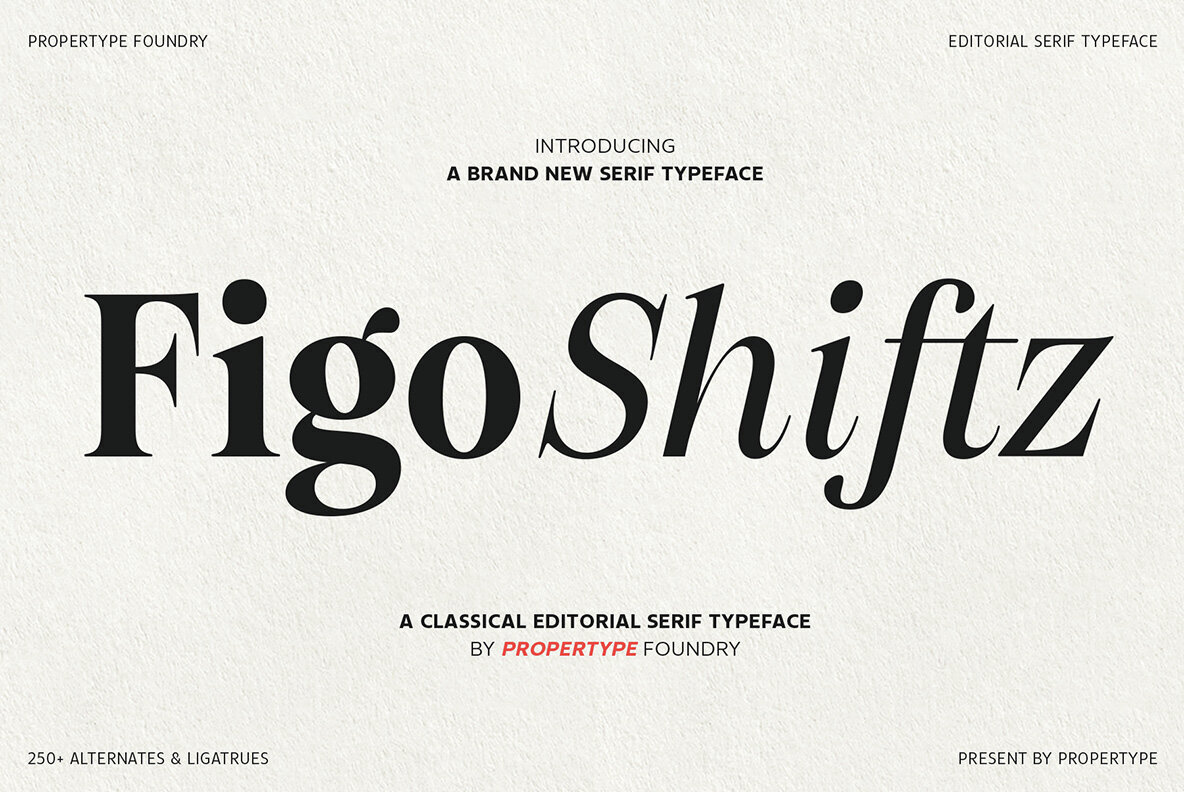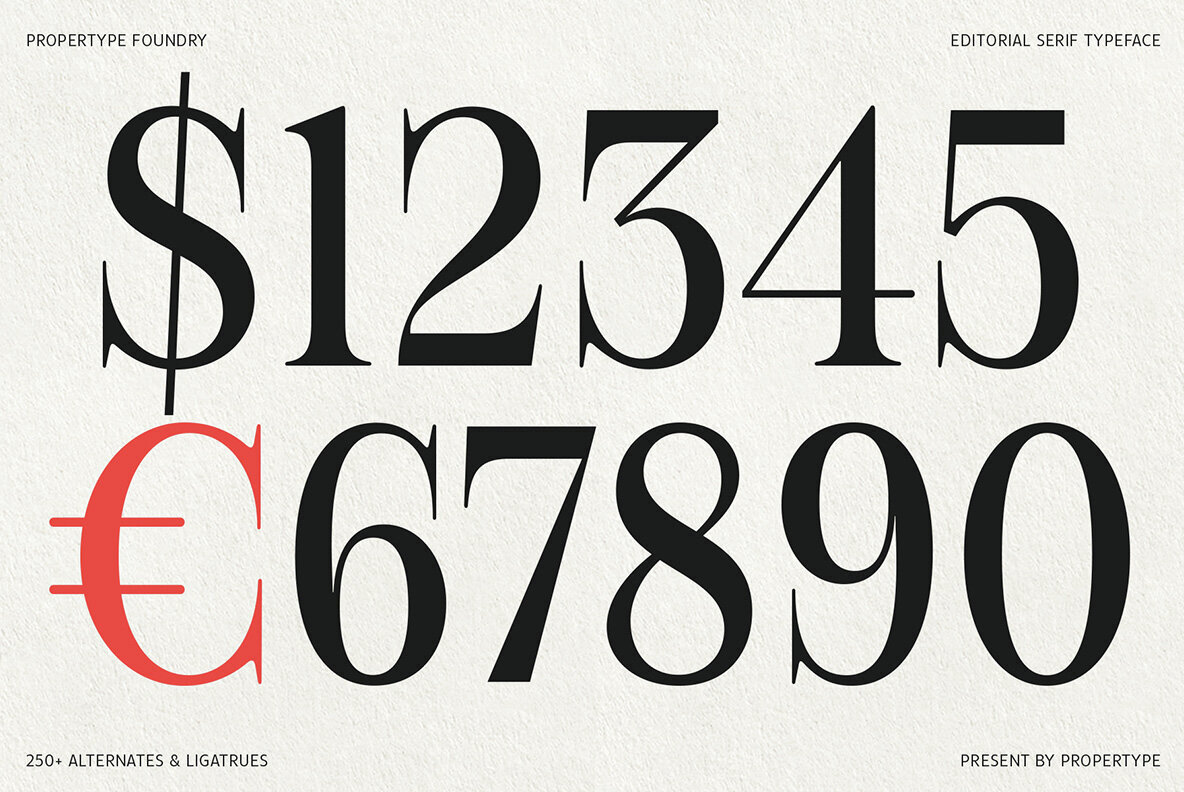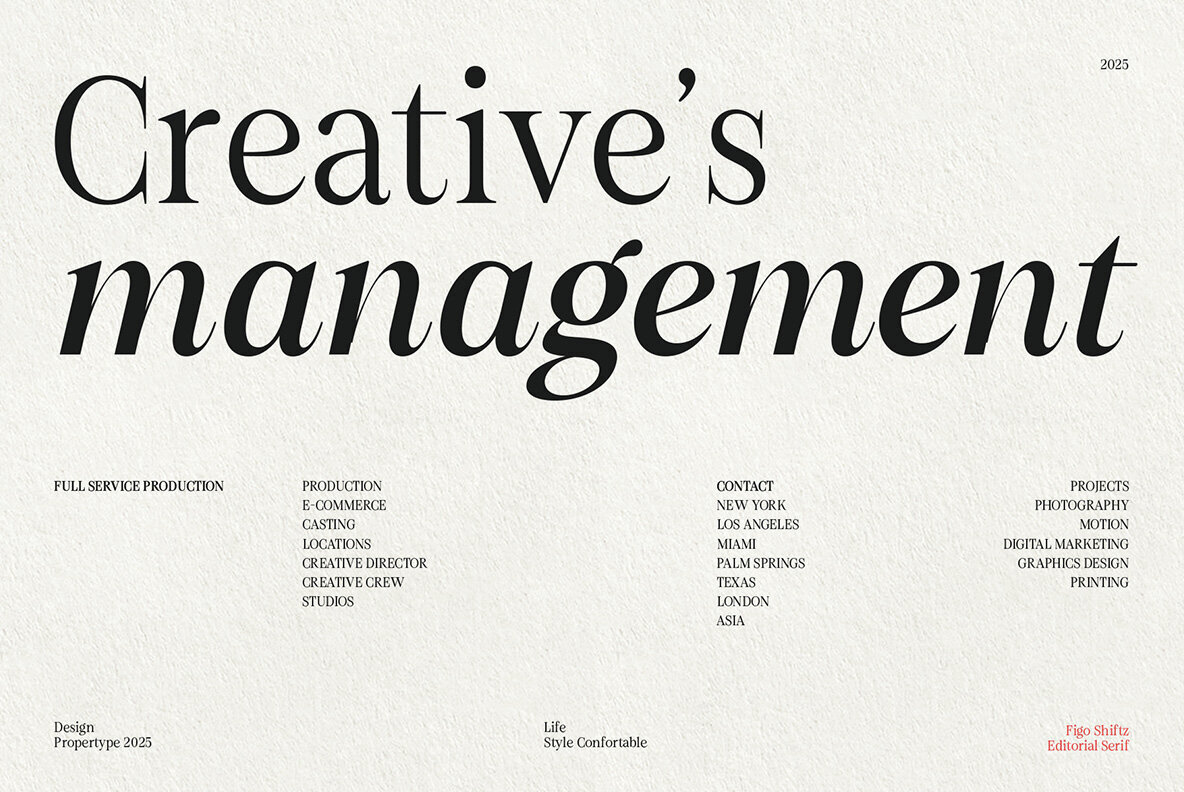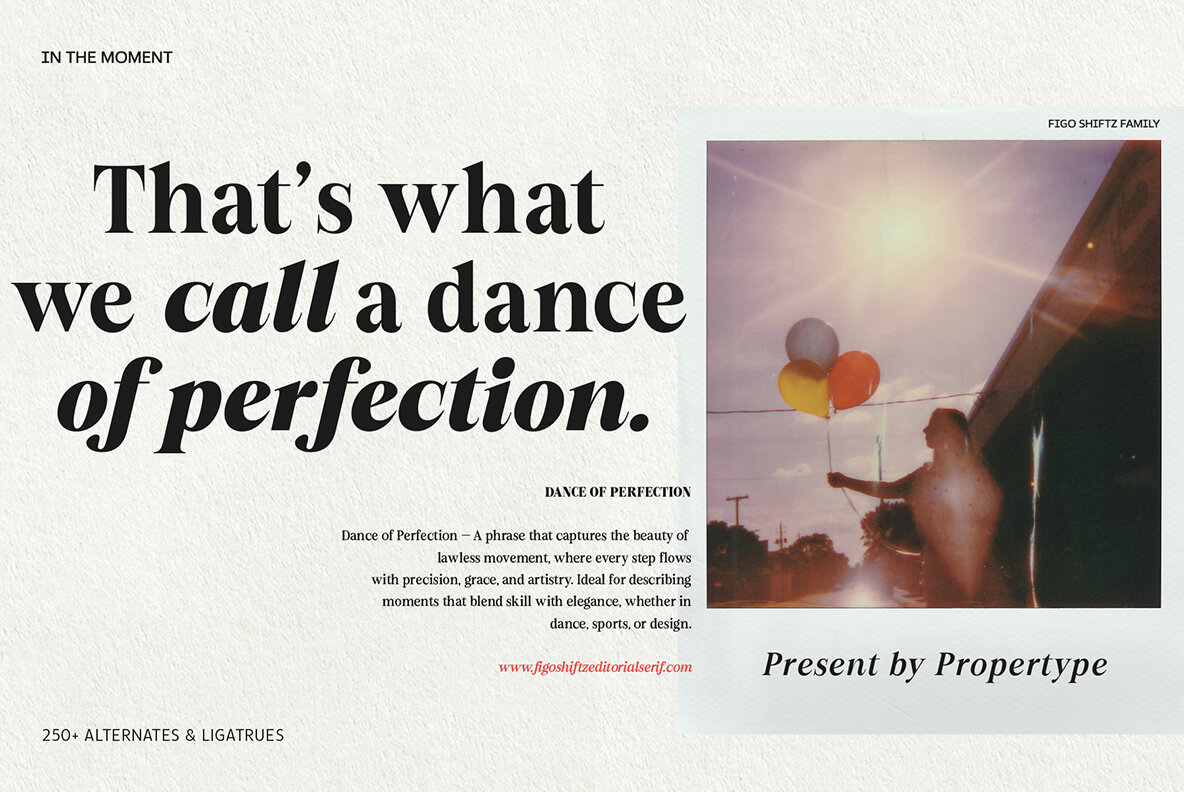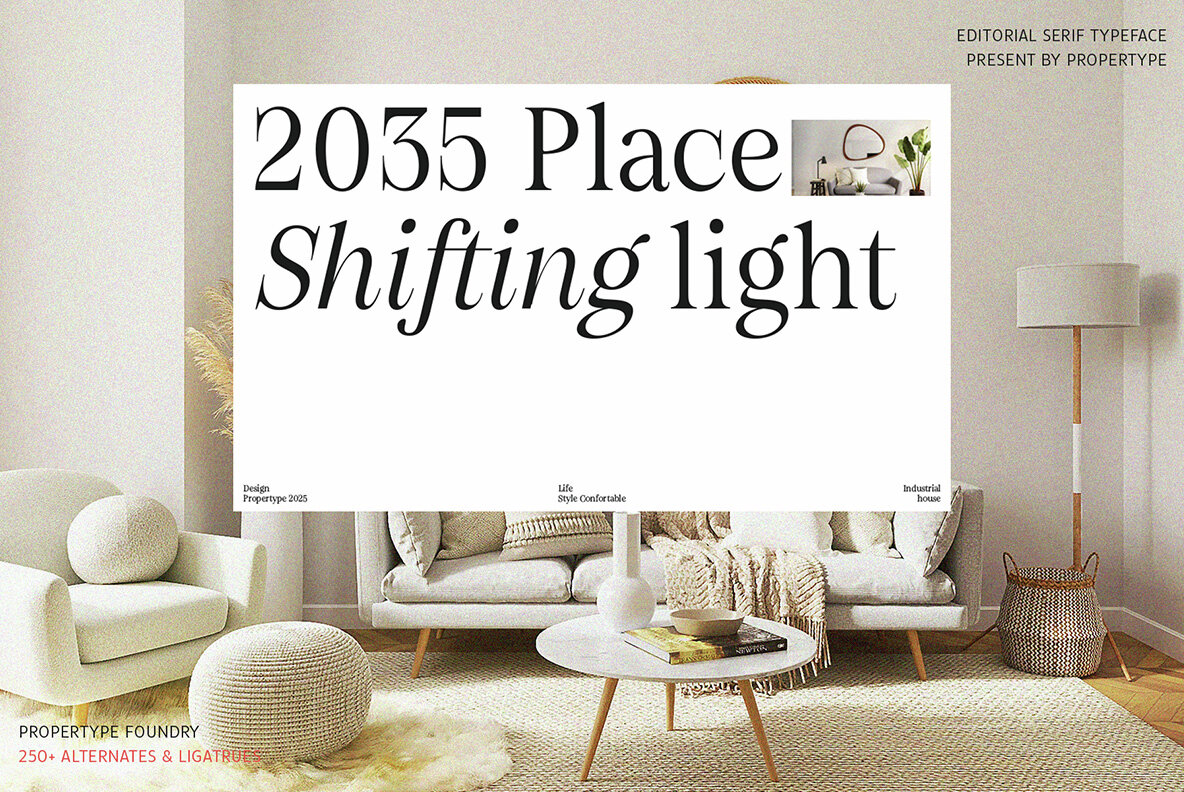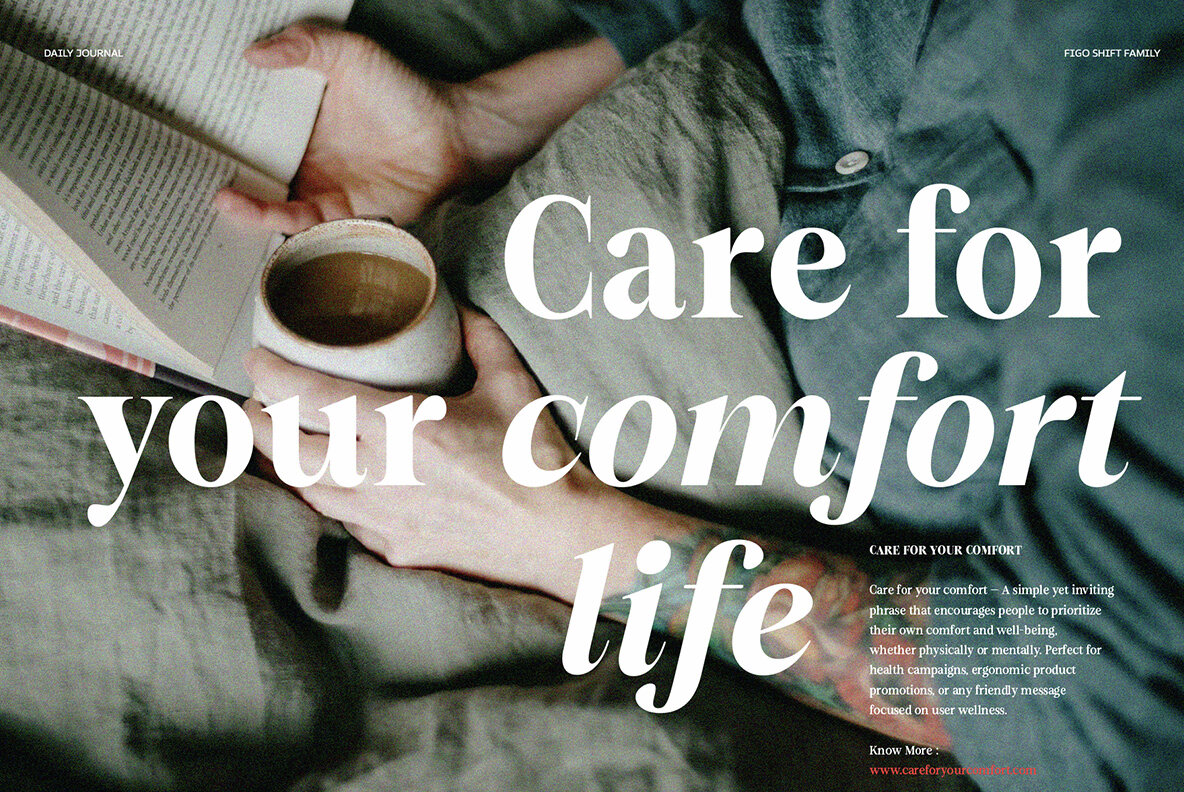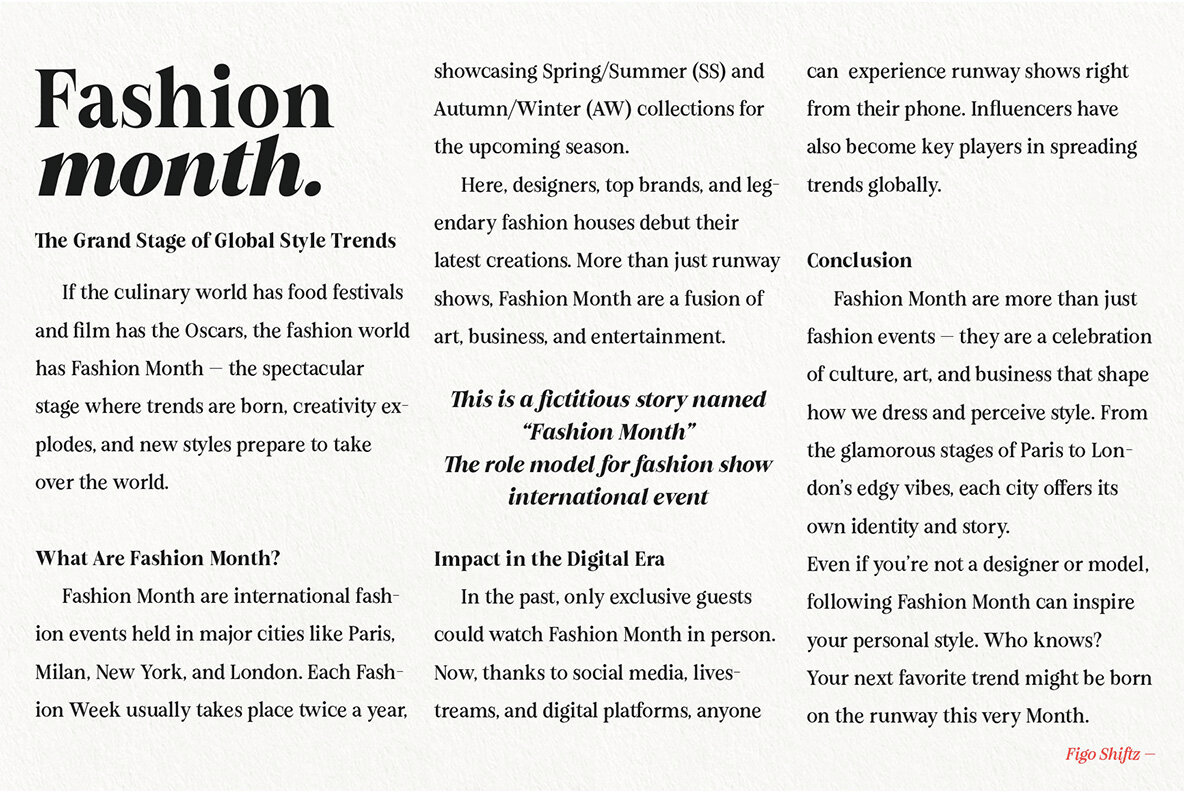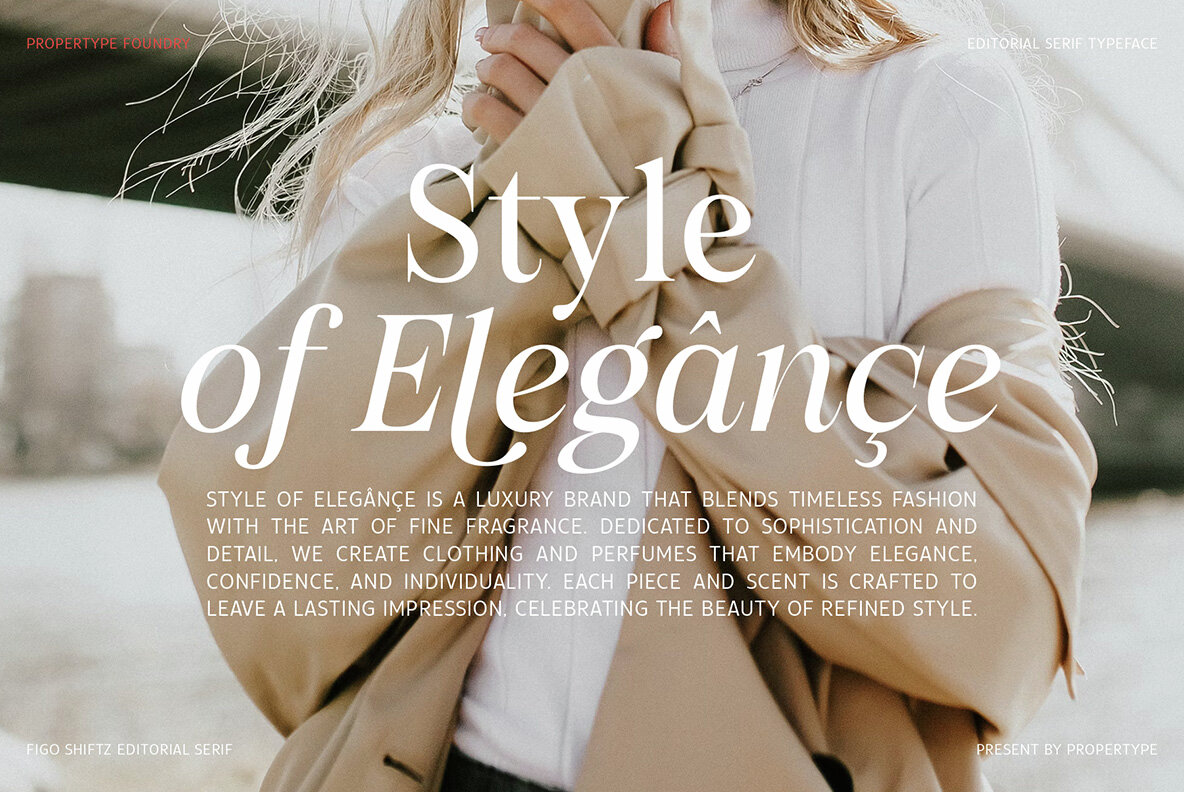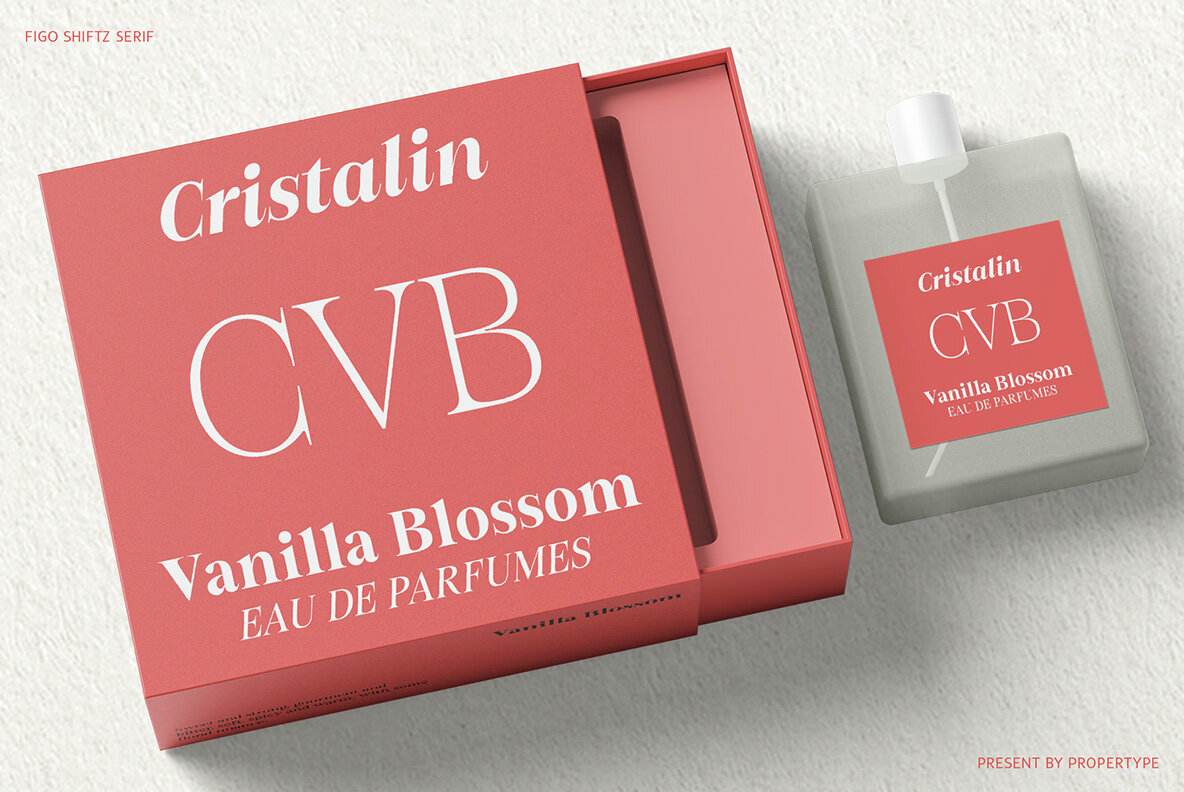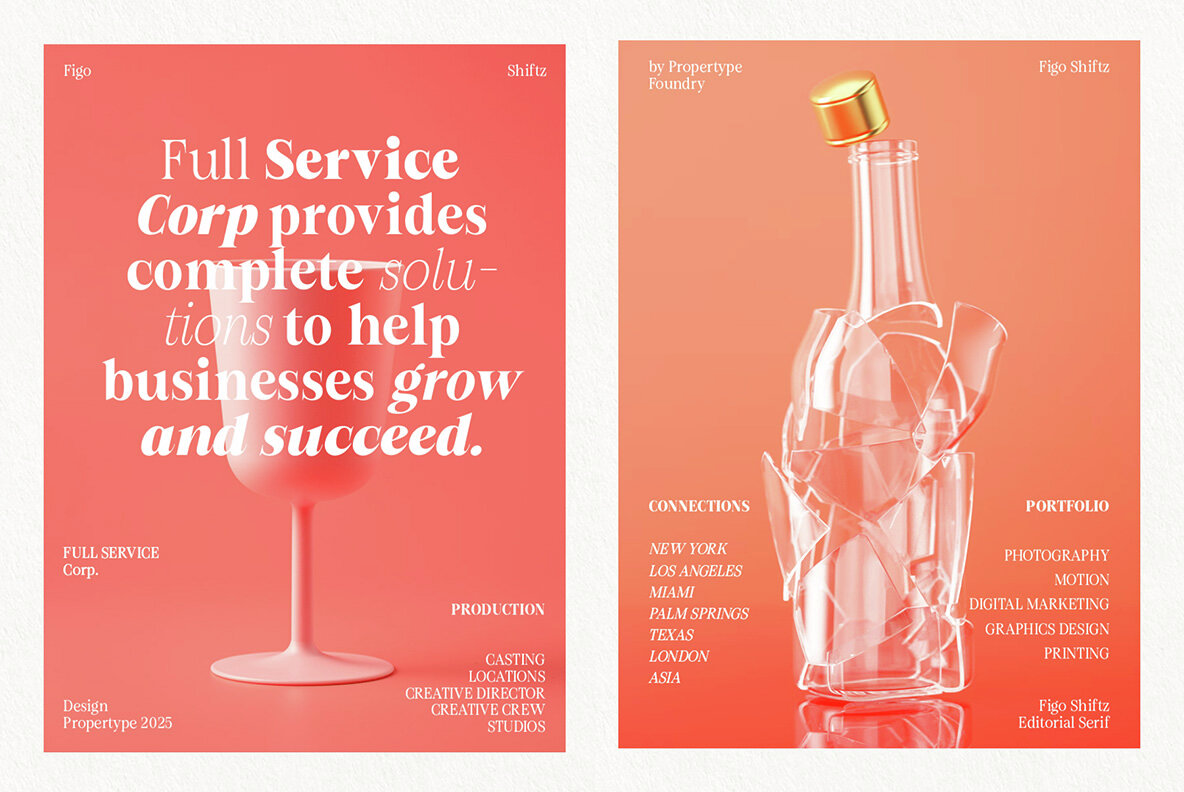
Figo Shiftz Font
Figo Shiftz is an editorial serif typeface that effortlessly combines the enduring elegance of classic typography with a polished modern flair. It is explicitly designed to impart both aesthetic appeal and versatility, featuring over 250 alternates and ligatures that cater to an expansive range of creative applications, from striking headlines to meticulously crafted body text. With nine weights ranging from Thin to Black, complemented by elegant calligraphic italics, Figo Shiftz offers comprehensive control over your typographic expression. Its exquisite serifs, balanced contrast, and intricate curves render it an ideal choice for editorial layouts, luxury branding, sophisticated packaging, typographic posters, and high-end promotional materials. Available also as a variable font, Figo Shiftz melds classic beauty with contemporary sharpness, ensuring a refined presence across print and digital platforms.Figo Shiftz: A Harmonious Blend of Tradition and Modernity